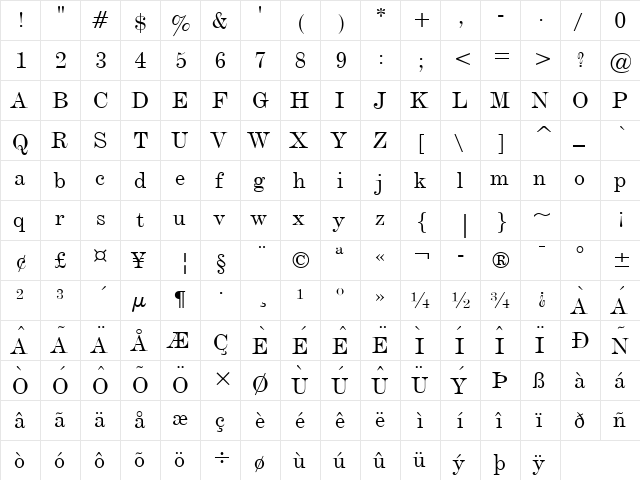
Devine Normal
Design Context for Devine Typeface
Devine takes a measured approach to typography — its balanced proportions and neutral character make it a reliable workhorse for both digital and print work.